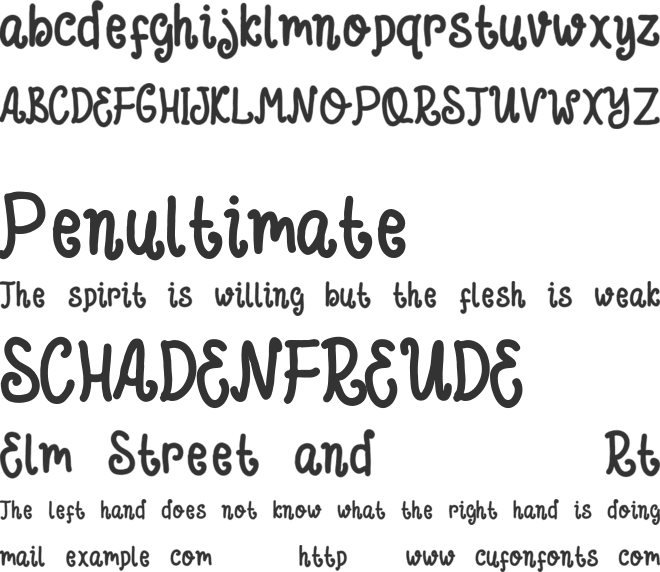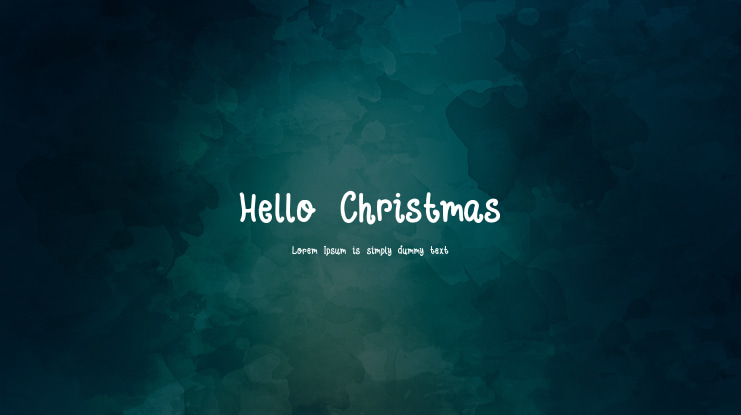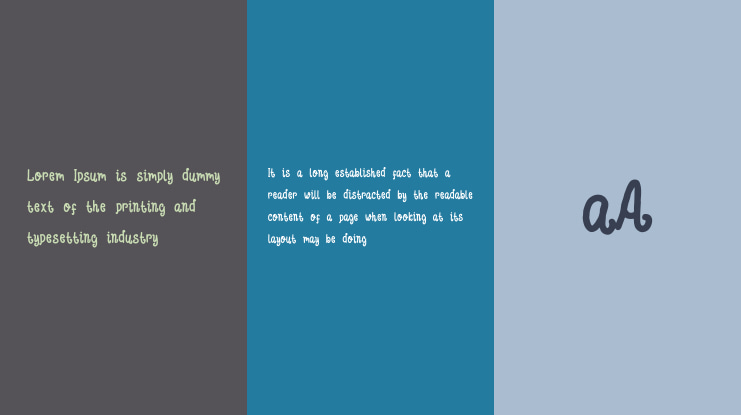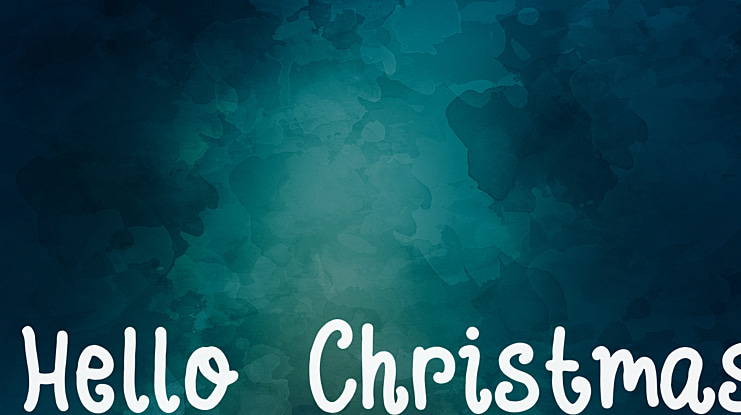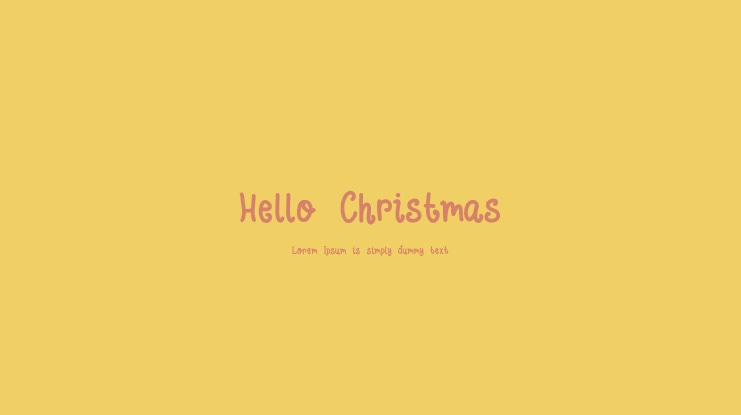
Hello Christmas Font
Hello Christmas is a fun and incredibly unique display font. Whether you’re using it for crafting, digital designing, presentations or greeting cards making, it’s perfect!